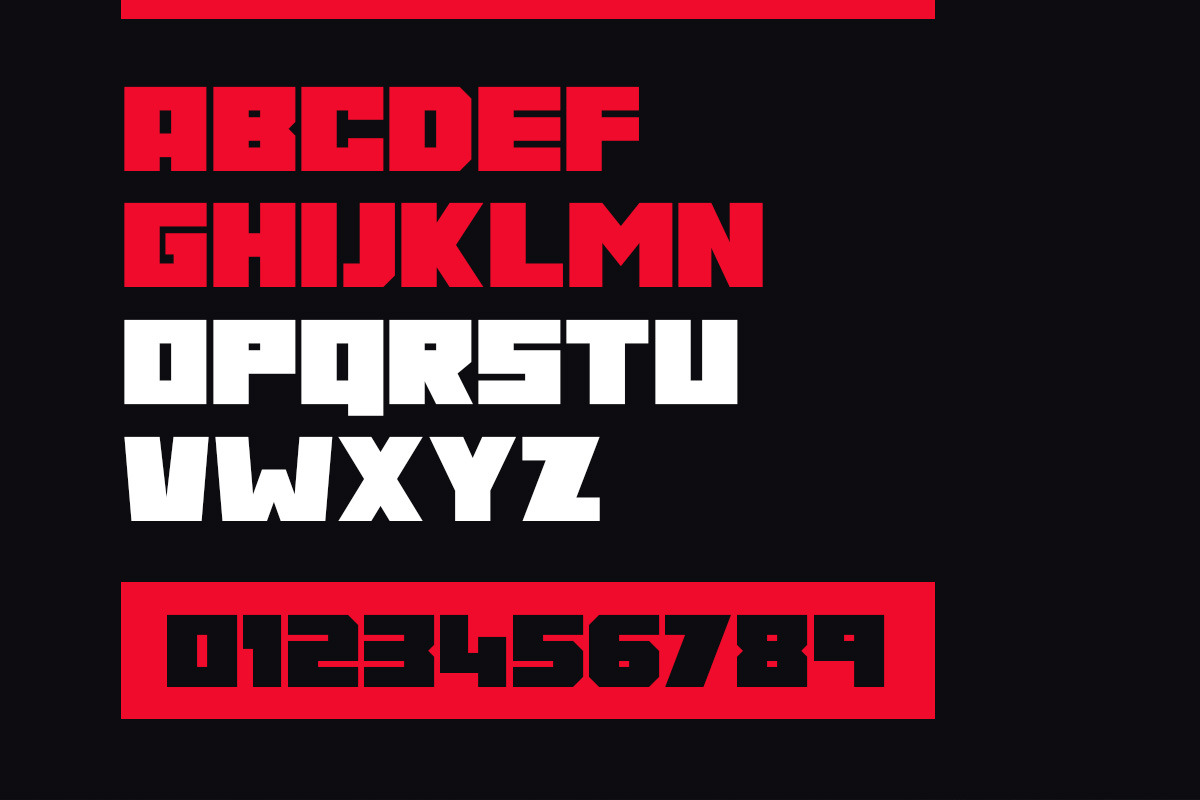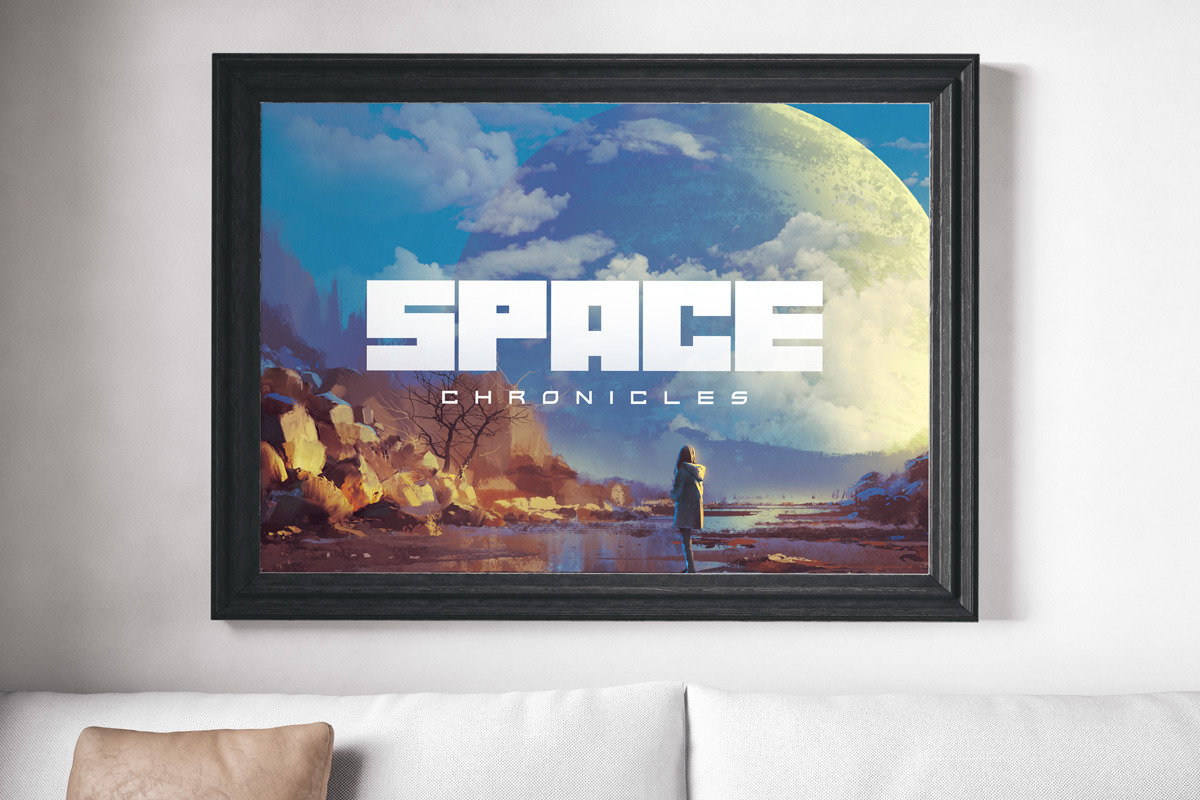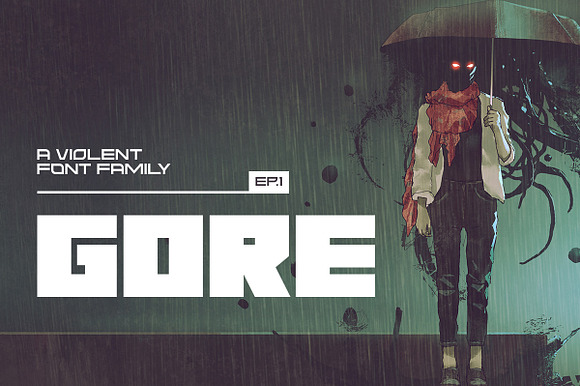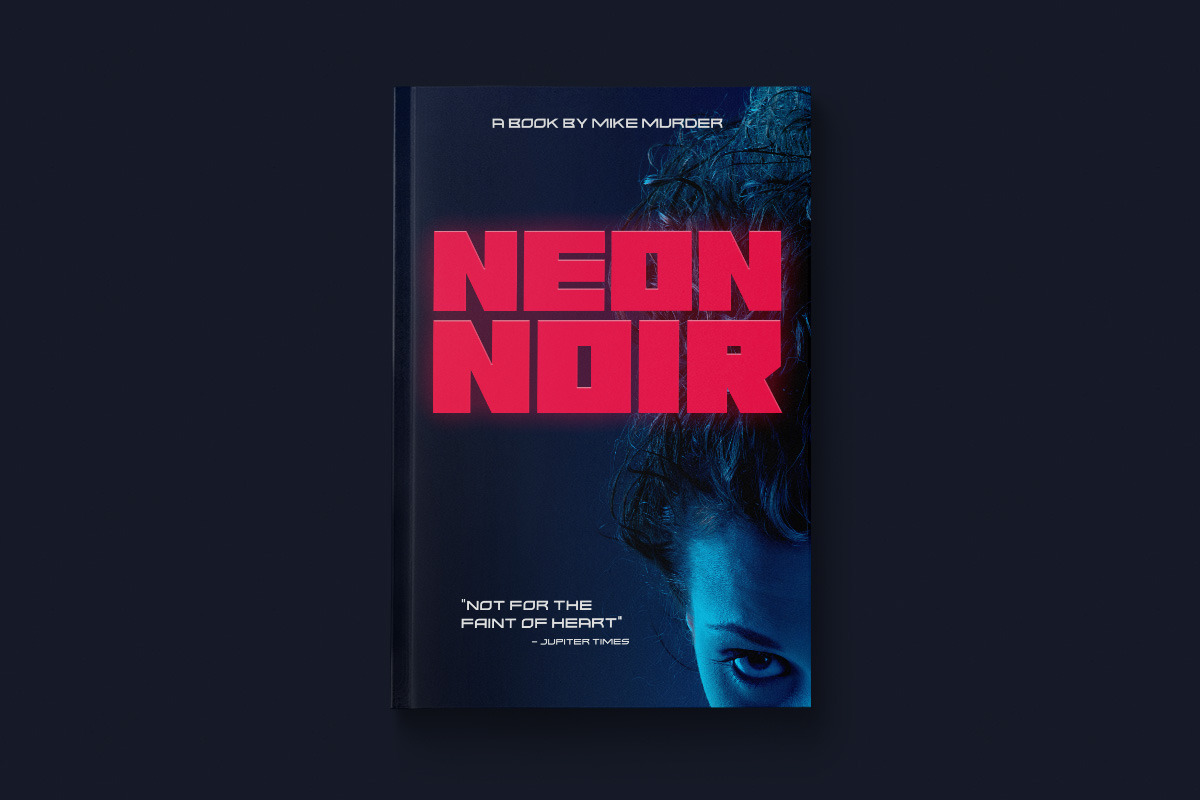
Gore Typeface
Gore is a big & strong display font family that has no curves! It's great for titles and pairs well with other sans serif and script fonts. Gore features regular and rough versions and includes multilingual uppercase letters, numbers and punctuation.
- Gore features regular and rough versions and includes multilingual uppercase letters, numbers and punctuation.
Gore Typeface by Tugcu Design Co. fits naturally into Branding, posters, packaging, typography.